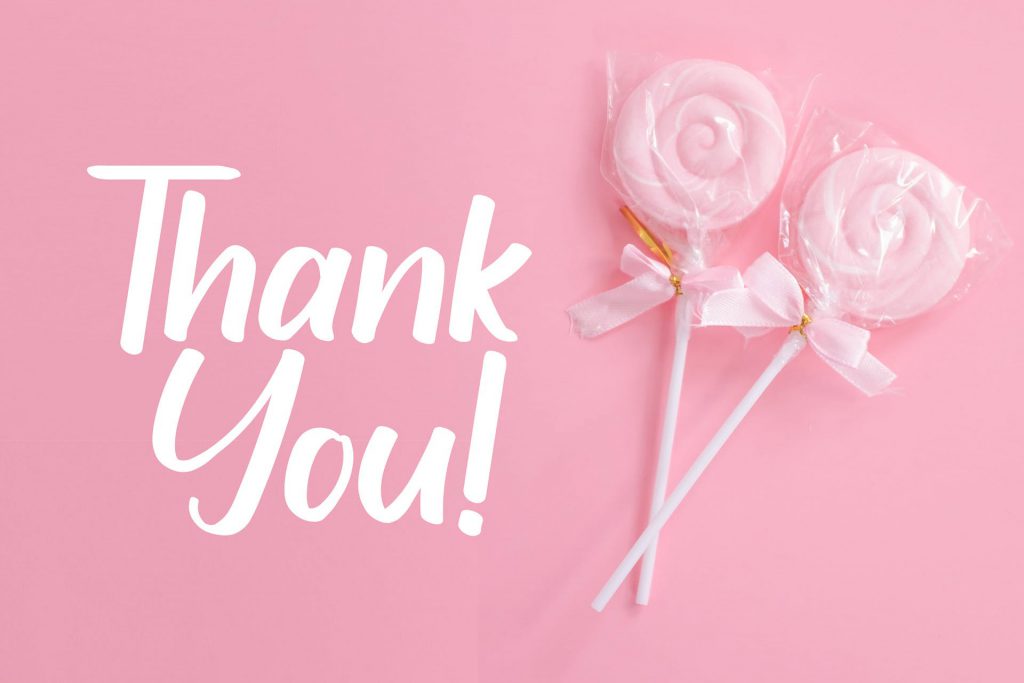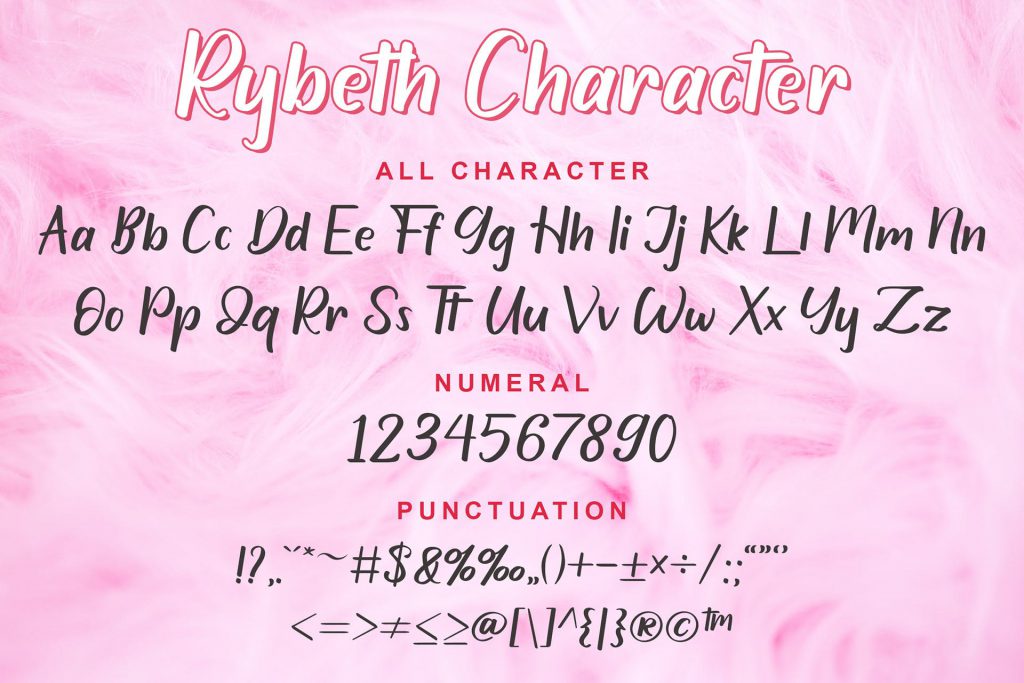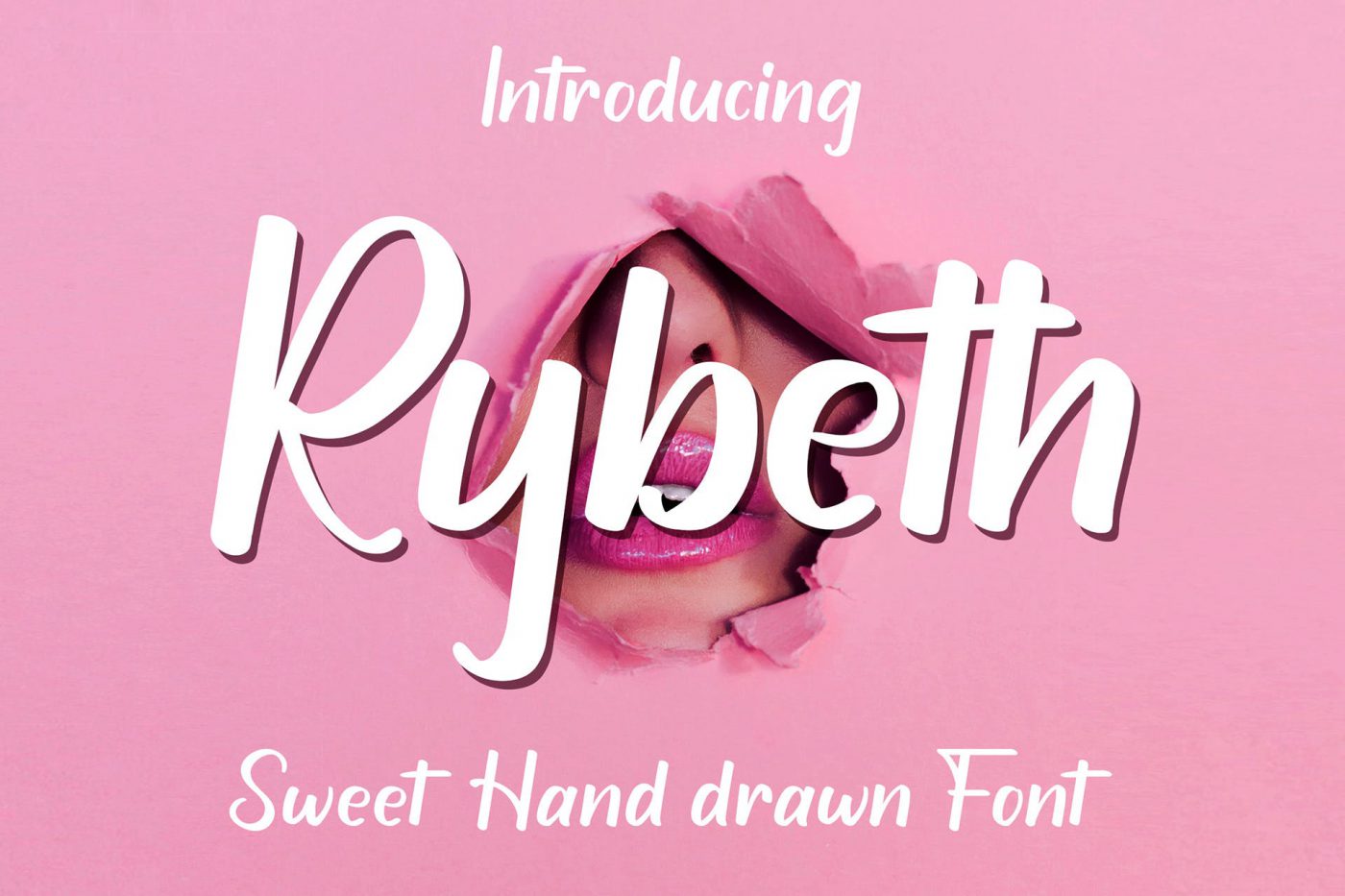
Free Rybeth Hand-Drawn Font is a sweet and playful script that’s great for adding that romantic spark to your next craft project!. This free font is excellent for branding projects, editorial designs, product packaging, and any other project needs.